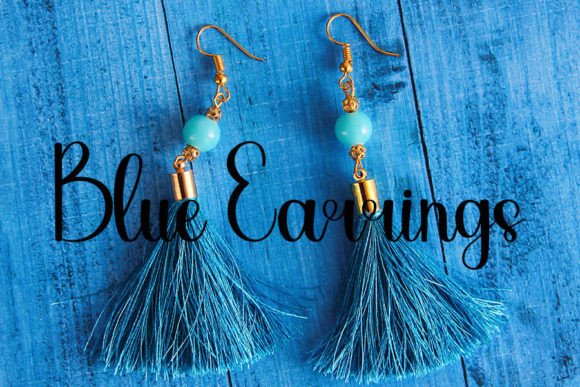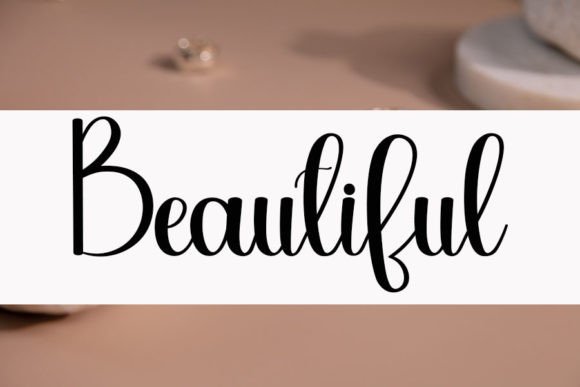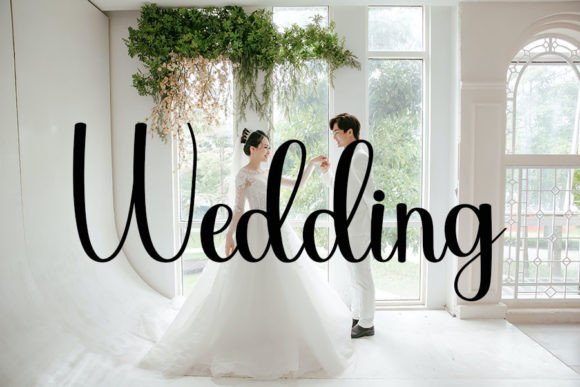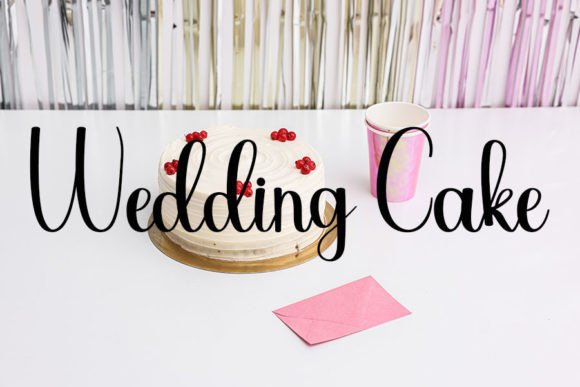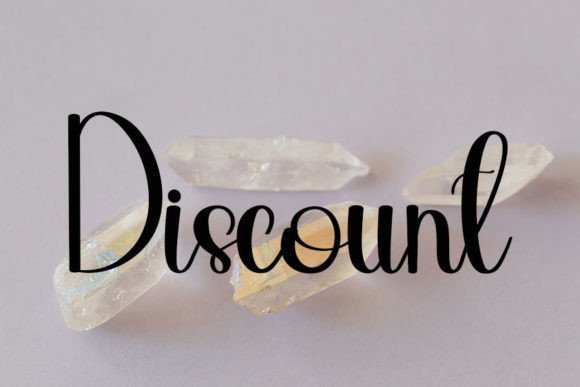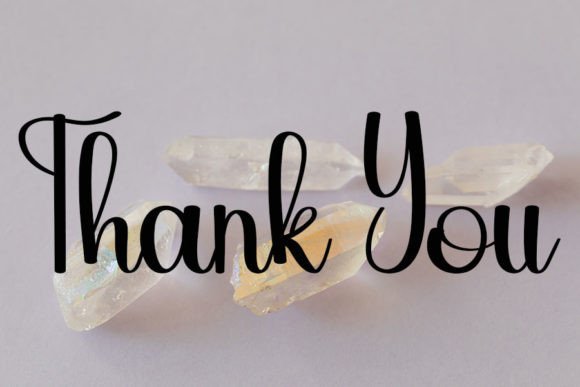
Earring Font: Elevate Your Designs with Elegance
Are you on the hunt for a font that exudes elegance and sophistication? Look no further than the Earring Font, a stunning handwritten font that is sure to capture your heart. With its unique blend of classic charm and modern flair, Earring is the perfect addition to any design project. In this article, we’ll dive into the world of Earring Font, exploring its features, benefits, and uses, as well as provide tips and inspiration for designers and crafters.
What is Earring Font?
Earring Font is a beautiful handwritten font characterized by its elegant touch. This lovely font is perfect for adding a touch of sophistication to your designs, whether you’re working on a logo, branding materials, or creative projects. Its incredibly distinct and timeless style makes it an excellent choice for designers and crafters looking to create spectacular designs that stand out from the crowd.
Key Features of Earring Font
- Handwritten Elegance: Earring Font boasts a beautiful, handwritten style that adds a touch of warmth and personality to your designs.
- Unique and Distinctive: With its classic charm and modern flair, Earring Font is sure to make your designs stand out from the crowd.
- Timeless Style: This font’s timeless style ensures that your designs will remain stylish and relevant for years to come.
- Versatile: Earring Font is perfect for a wide range of design projects, from logos and branding materials to creative projects and crafts.
Benefits of Using Earring Font
So, why choose Earring Font for your design projects? Here are just a few benefits of using this stunning font:
- Adds Elegance and Sophistication: Earring Font’s elegant style adds a touch of sophistication to your designs, making them perfect for high-end brands and luxury products.
- Creates Emotional Connection: The handwritten style of Earring Font creates an emotional connection with your audience, making your designs more relatable and engaging.
- Versatile and Adaptable: Earring Font can be used in a wide range of design projects, from digital designs to print materials.
Using Earring Font in Design Projects
So, how can you use Earring Font in your design projects? Here are a few ideas to get you started:
- Logos and Branding Materials: Use Earring Font to create stunning logos and branding materials that exude elegance and sophistication.
- Creative Projects: Add a touch of elegance to your creative projects, such as handmade cards, scrapbooking, and DIY crafts.
- Digital Designs: Use Earring Font in digital designs, such as social media graphics, blog posts, and website headers.
Tips and Inspiration for Designers and Crafters
Here are a few tips and inspiration for designers and crafters looking to make the most of Earring Font:
- Experiment with Colors and Textures: Add an extra touch of elegance to your designs by experimenting with different colors and textures.
- Pair with Other Fonts: Pair Earring Font with other fonts to create stunning contrast and visual interest.
- Use in Combination with Images: Use Earring Font in combination with images to create beautiful and eye-catching designs.